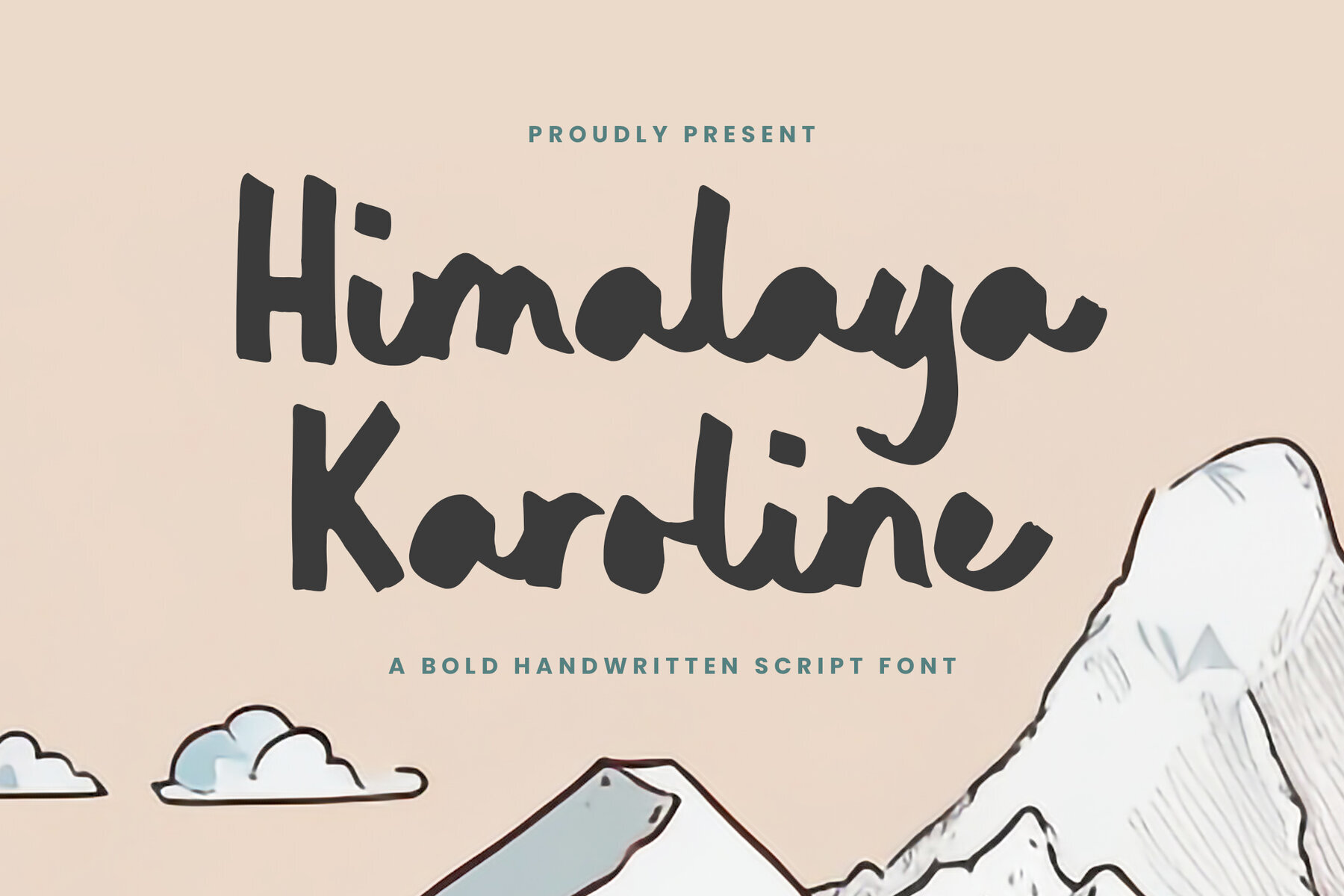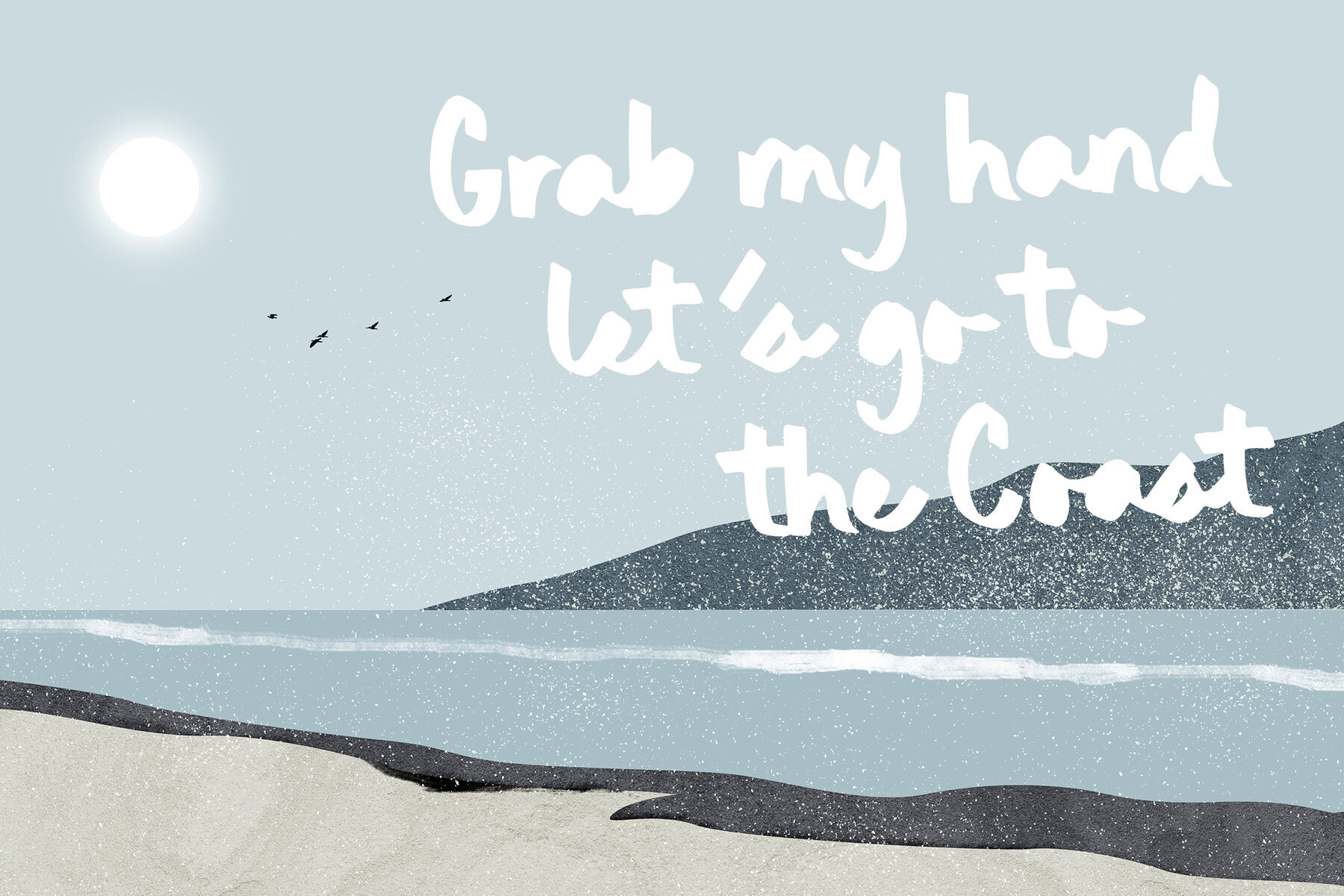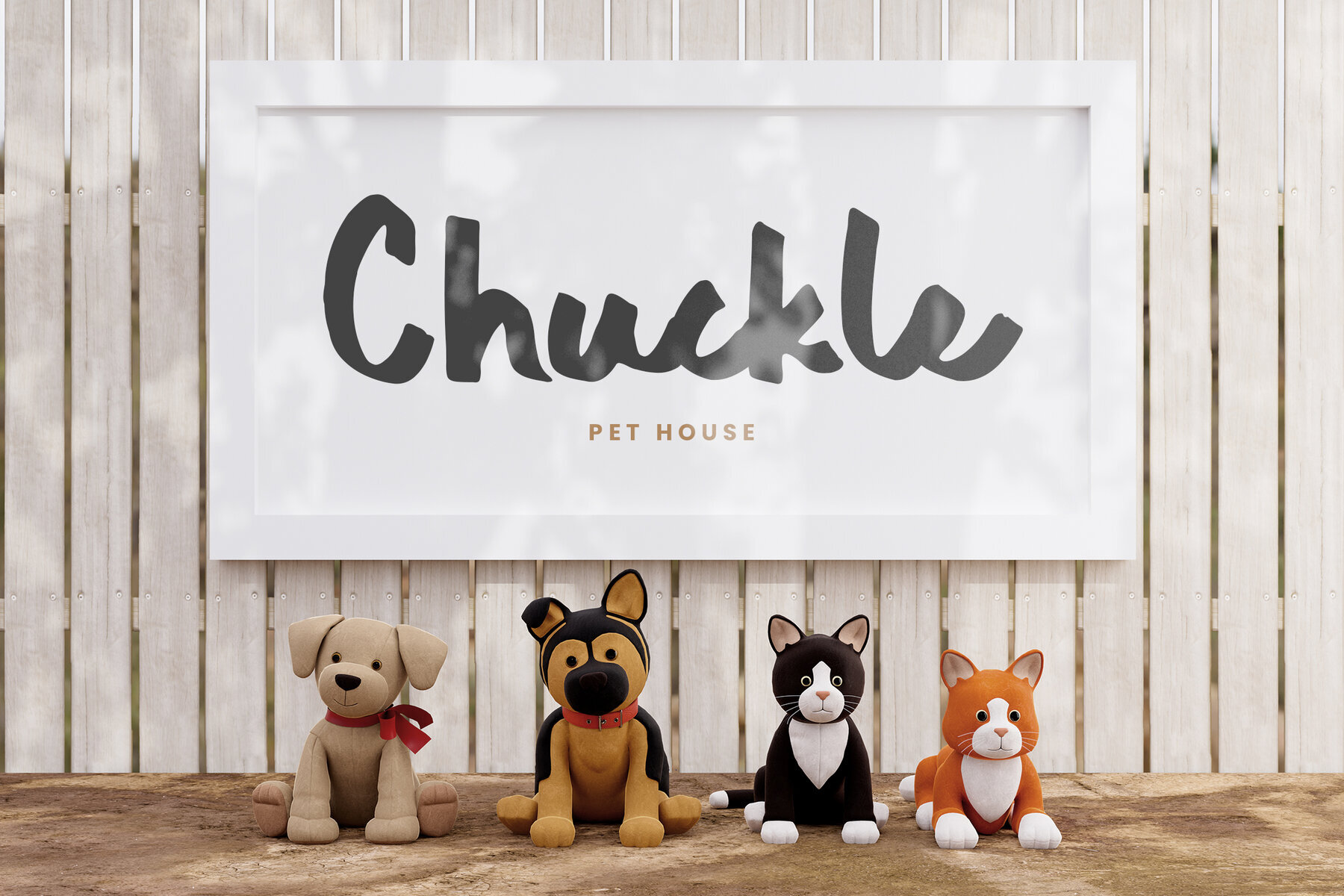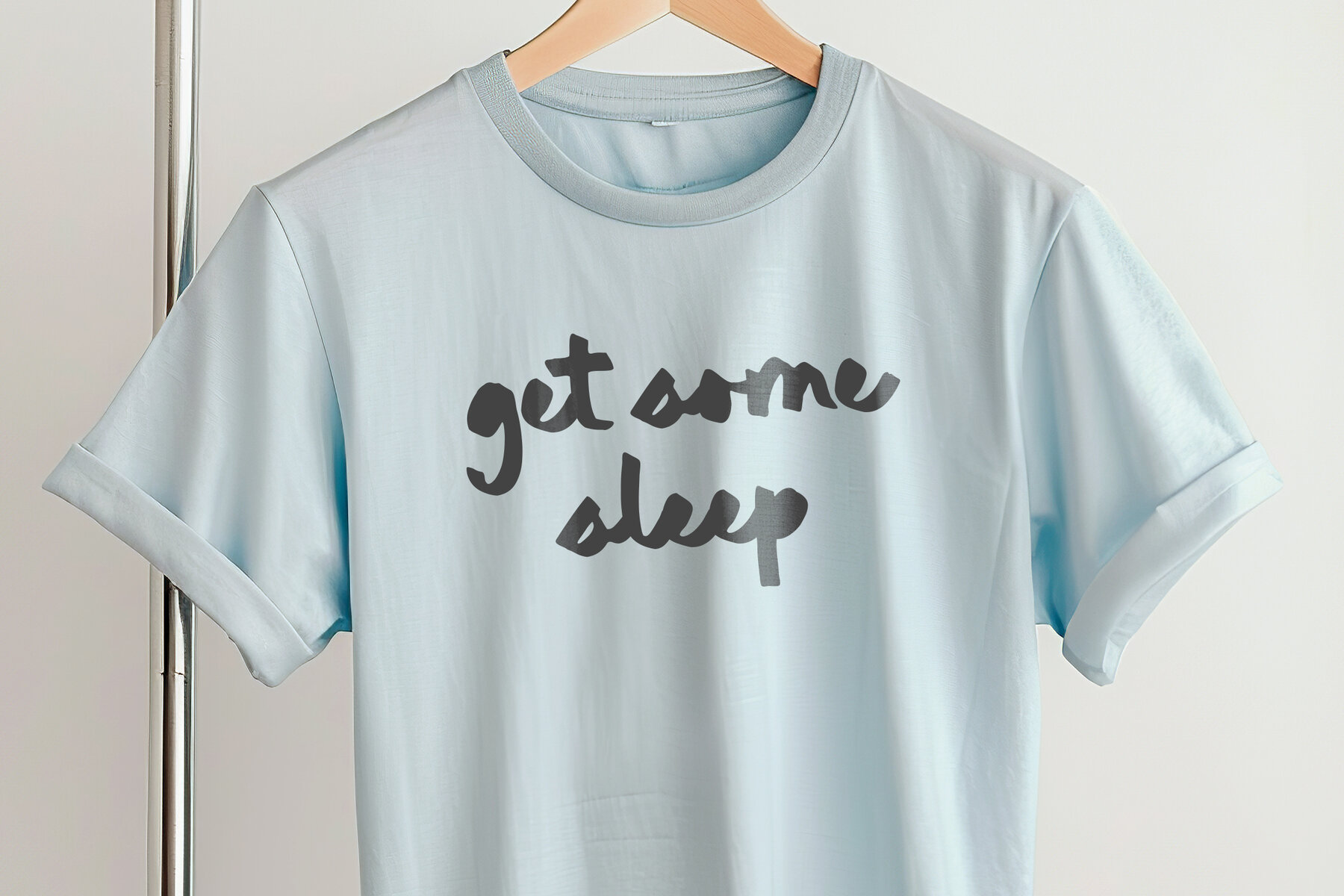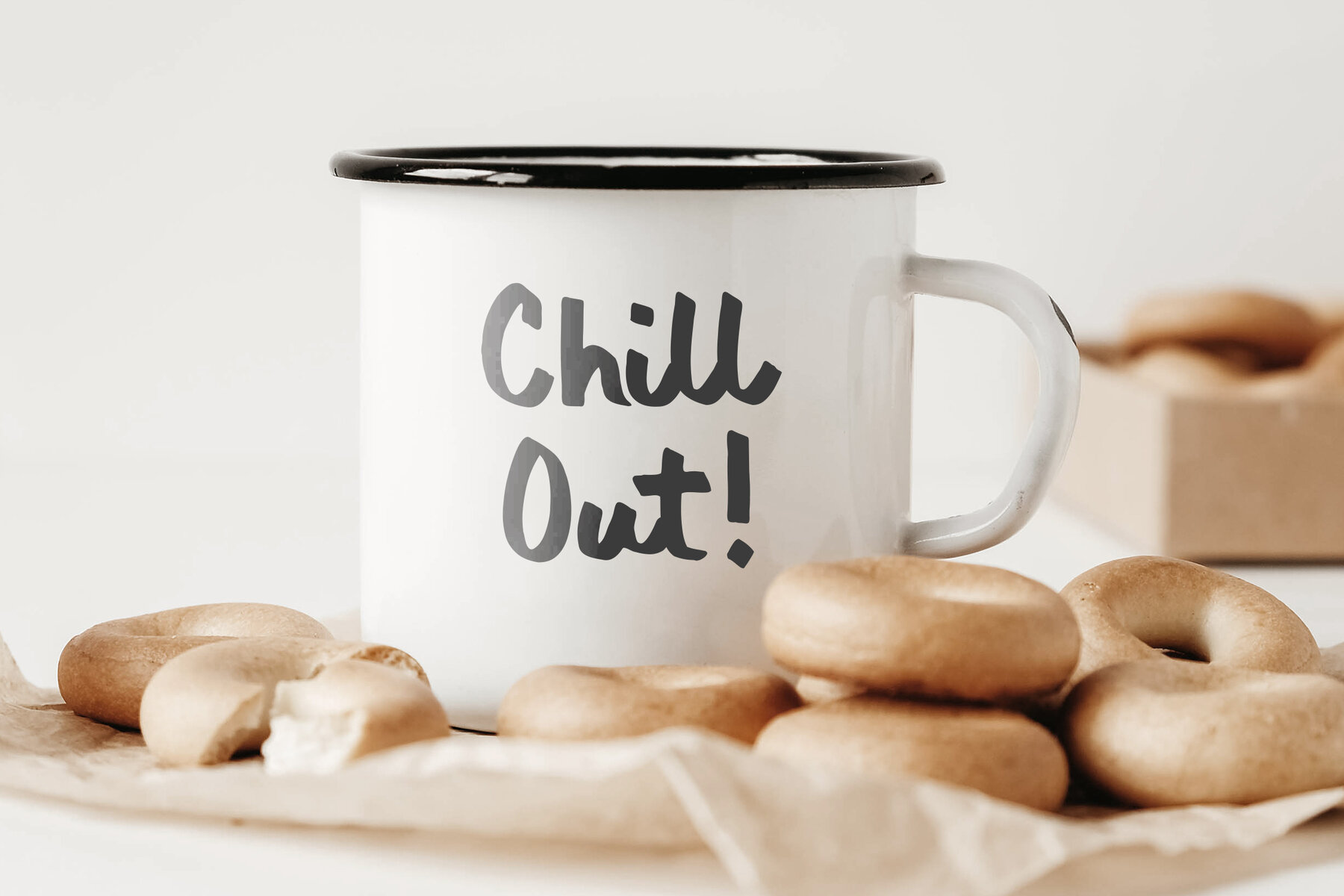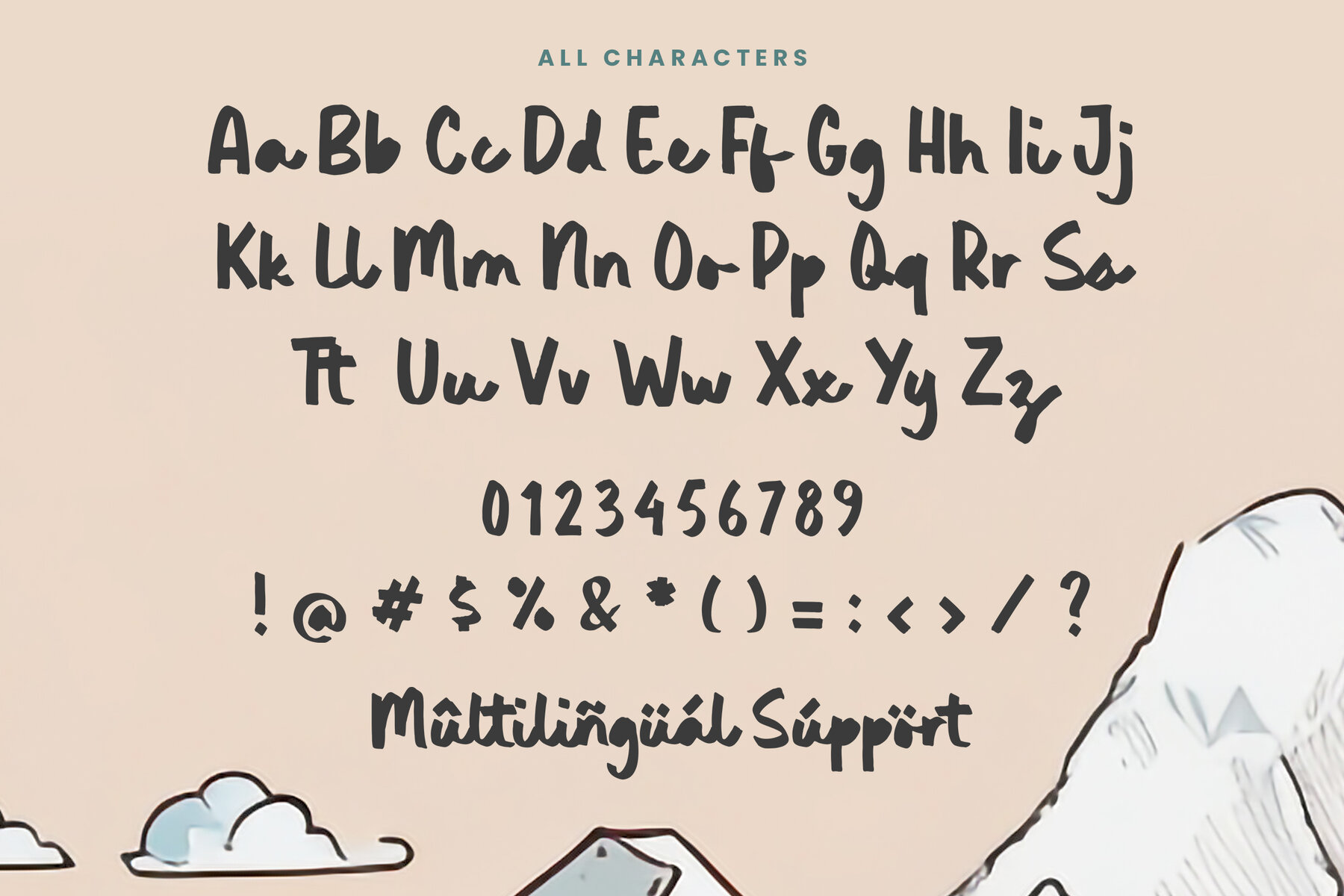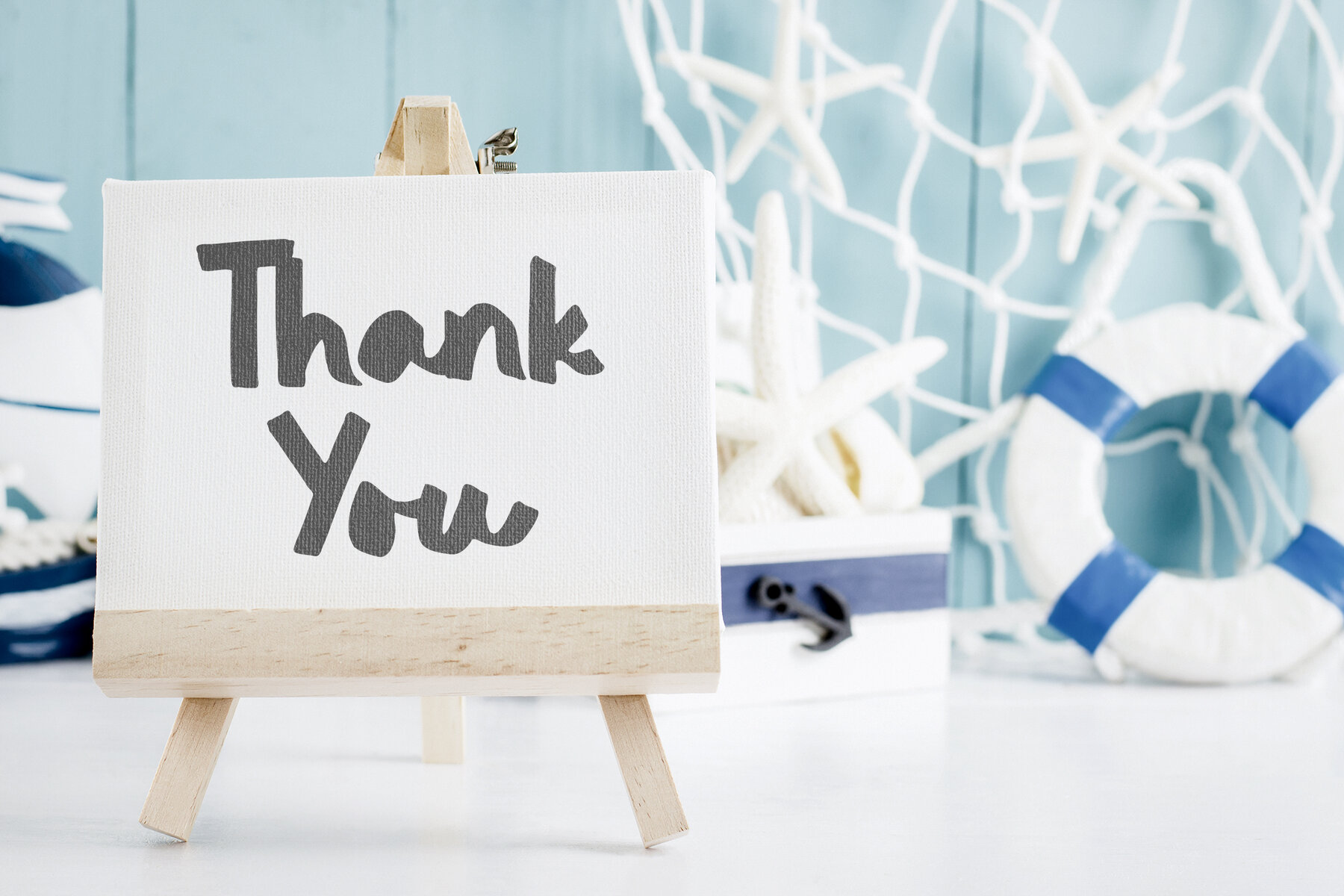
Himalaya Karoline is a bold handwritten script font that combines elegance with a strong, dynamic presence. Its flowing, slightly rounded strokes create a harmonious blend of personal handwriting warmth with an assertive style. This font is ideal for headlines, branding, and creative projects that require a sophisticated yet approachable look.
With its thick lines and smooth curves, Himalaya Karoline ensures exceptional legibility and a striking appearance in any design. The font's boldness makes it perfect for capturing attention, while its script style adds a touch of casual charm to various design applications. Whether used in logos, advertisements, or digital interfaces, Himalaya Karoline consistently delivers a compelling visual impact.